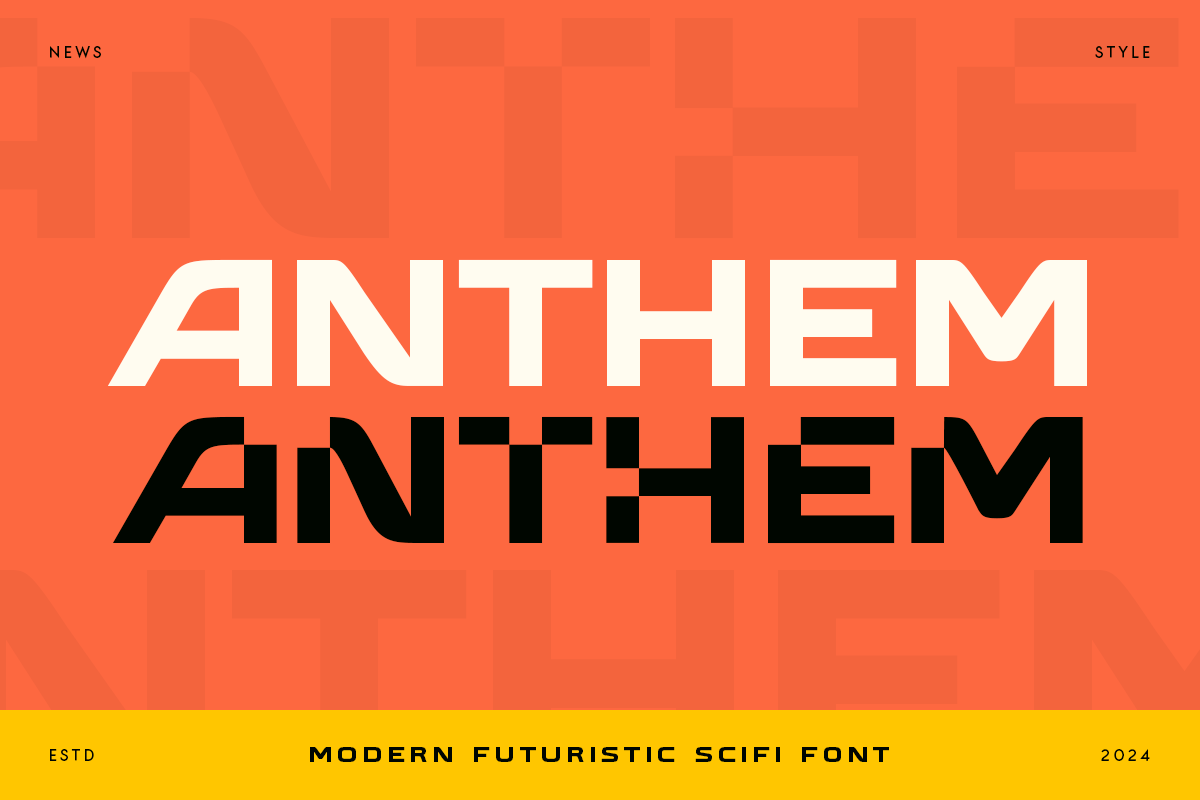
ANTHEM - Modern Futuristic Font
Transform your tech projects with ANTHEM's cutting-edge futuristic design that commands attention. ANTHEM is a futuristic sci-fi font engineered specifically for sci-fi, modern, and technology-focused designs. Its distinctive futuristic styling makes your typography instantly recognizable, making it ideal for cryptocurrency projects, technology branding, film titles, and sci-fi themed content. This modern typeface delivers tech-inspired aesthetics to any project, perfectly capturing and expressi...